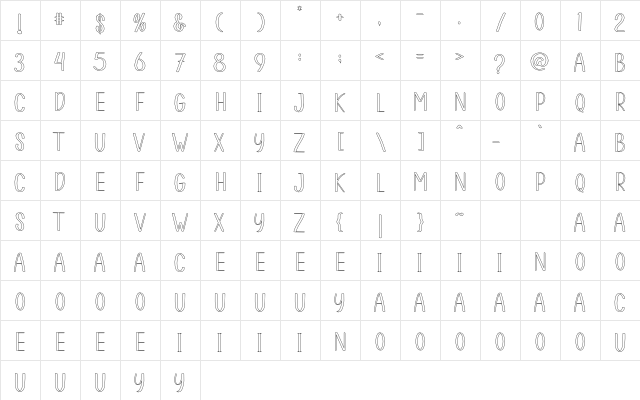
KIDS SCHOOL Regular Font Preview
KIDS SCHOOL Regular
Design Context for KIDS SCHOOL Typeface
KIDS SCHOOL has an approachable, lighthearted character — its loose, expressive forms are well-suited to children's content, casual branding, and fun-first design.
Font Pairing: Pairs well with a rounded or humanist sans for body copy, maintaining the friendly tone without relying on KIDS SCHOOL to carry extended reading.
Pro Tip: Avoid using KIDS SCHOOL for long passages of text — it works best for headlines, labels, and short calls to action.